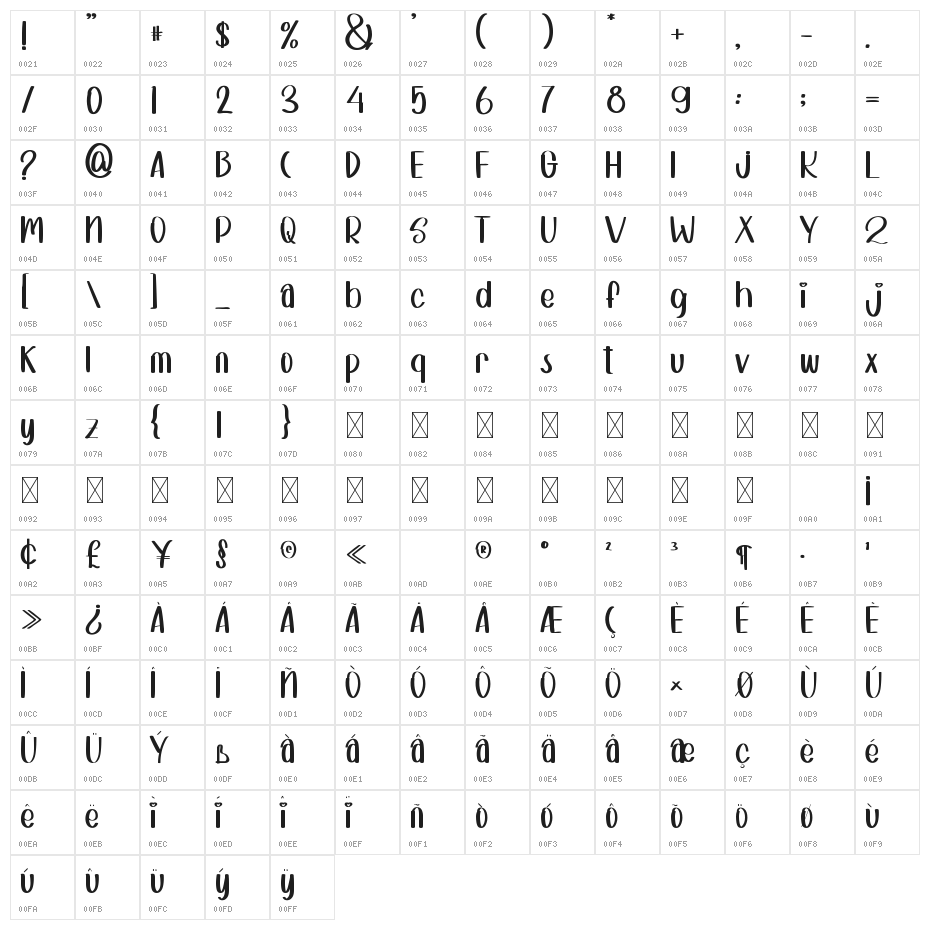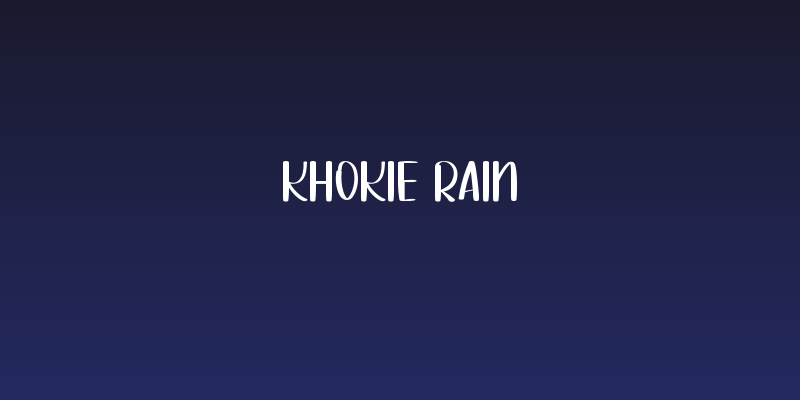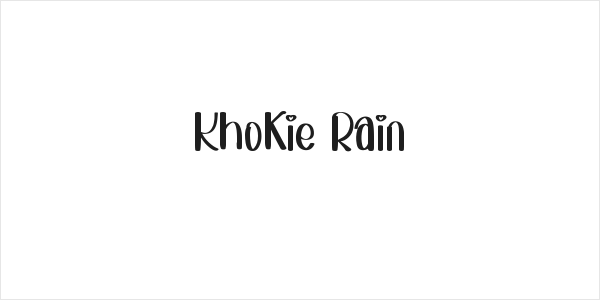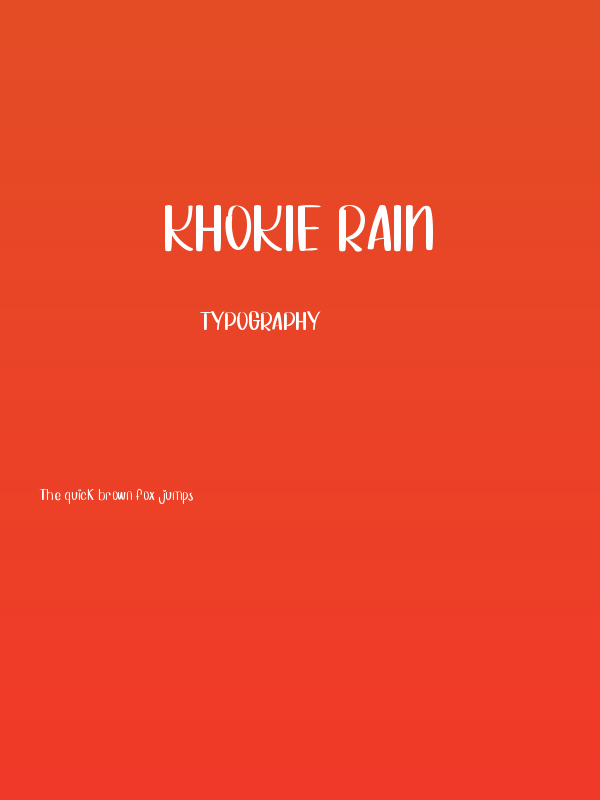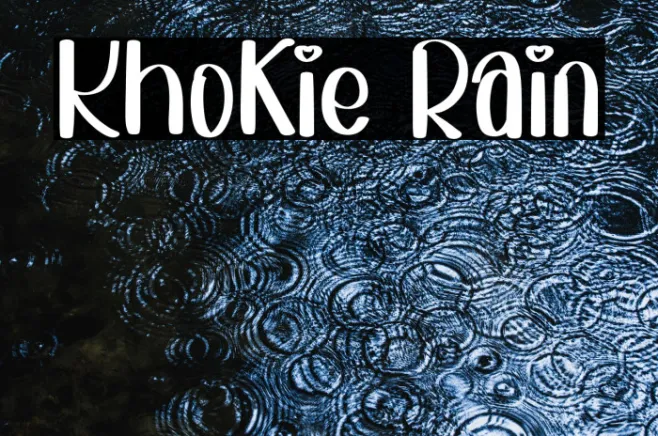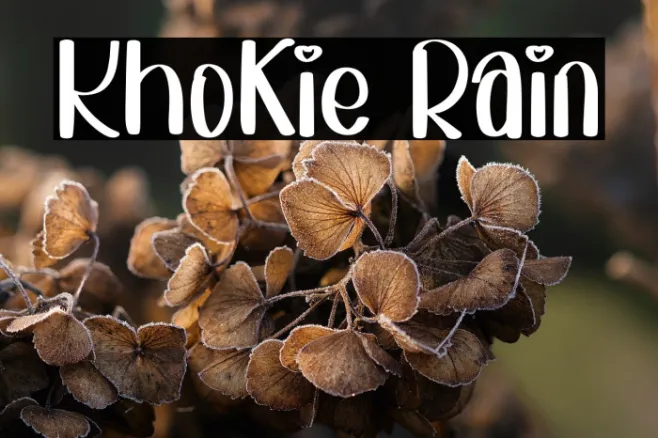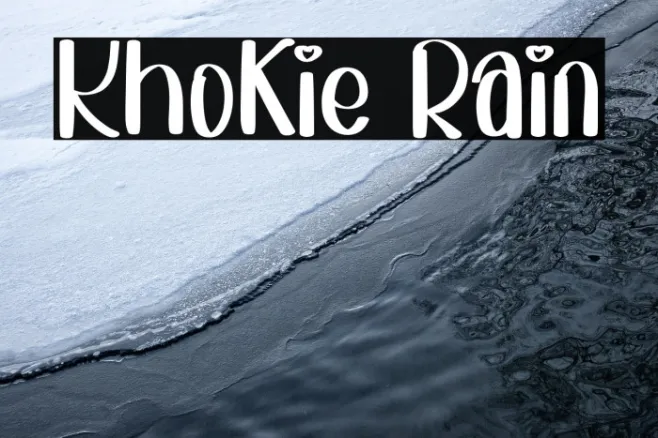
Khokie Rain Font
Khokie Rain Description
This playful and whimsical font features a handwritten style with a mix of thick and thin strokes, giving it a lively and dynamic appearance. The uppercase letters are bold and slightly condensed, while the lowercase letters have a more relaxed and flowing form. The font includes unique details, such as heart-shaped dots on the lowercase 'i' and 'j', adding a touch of charm. Numbers and special characters maintain the same playful aesthetic, making this font versatile for creative projects.
| Proposed Projects | Ideal for children's books, greeting cards, playful branding, and creative posters. |